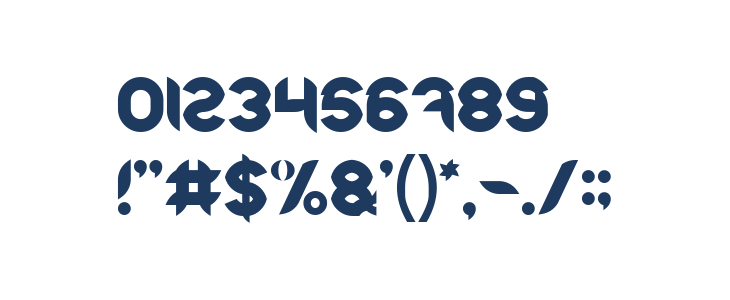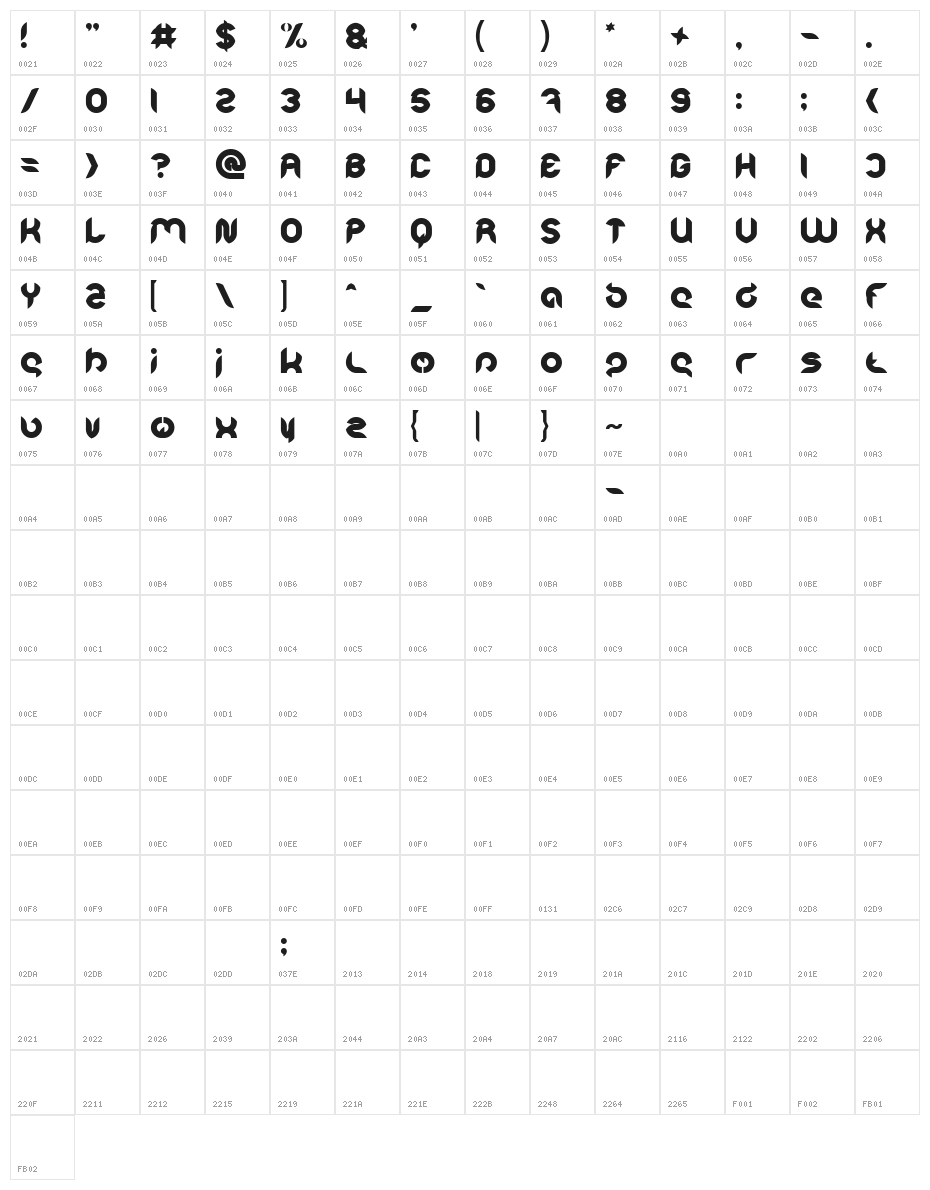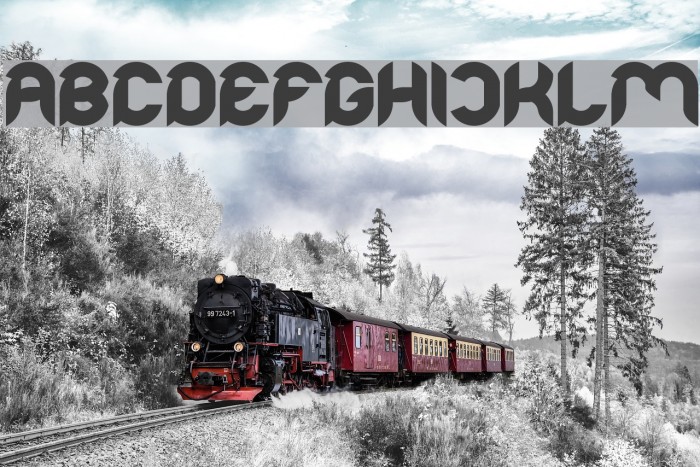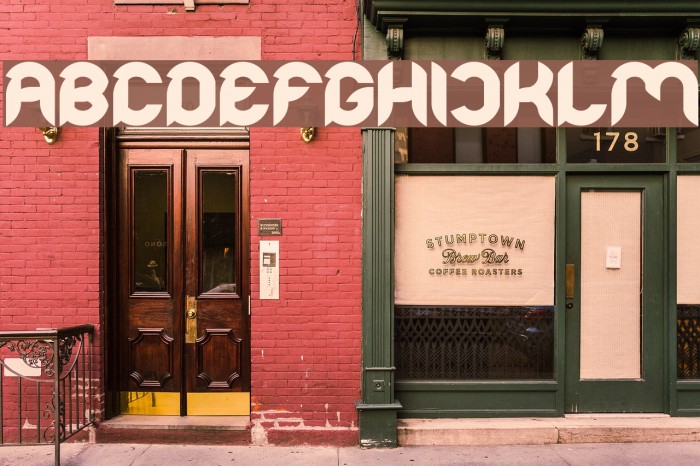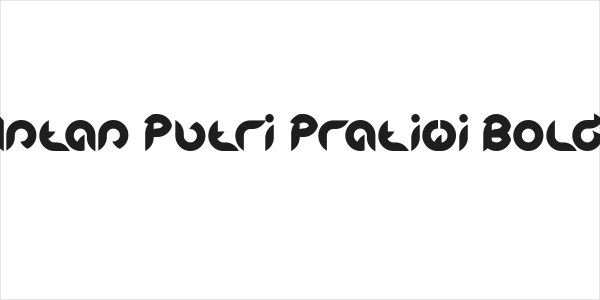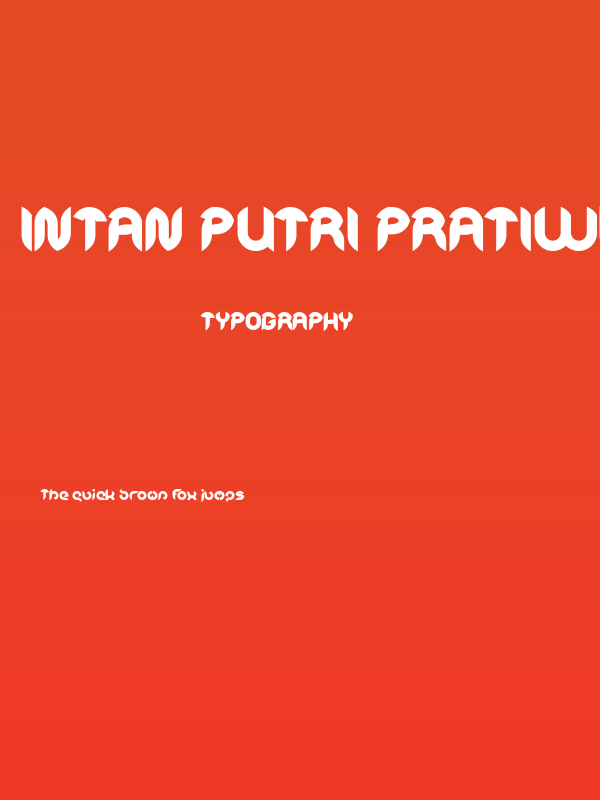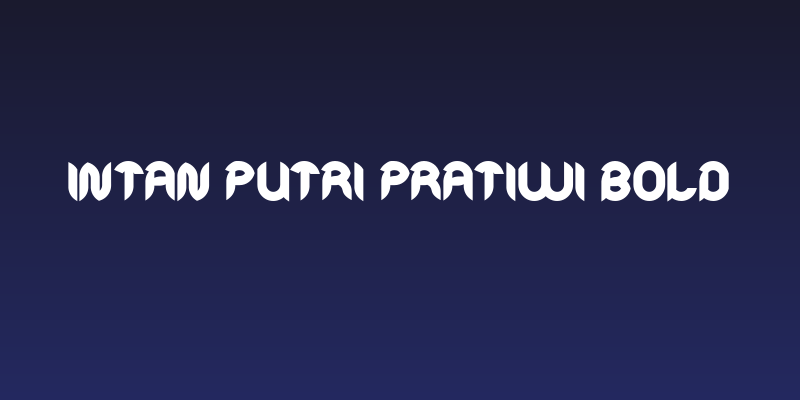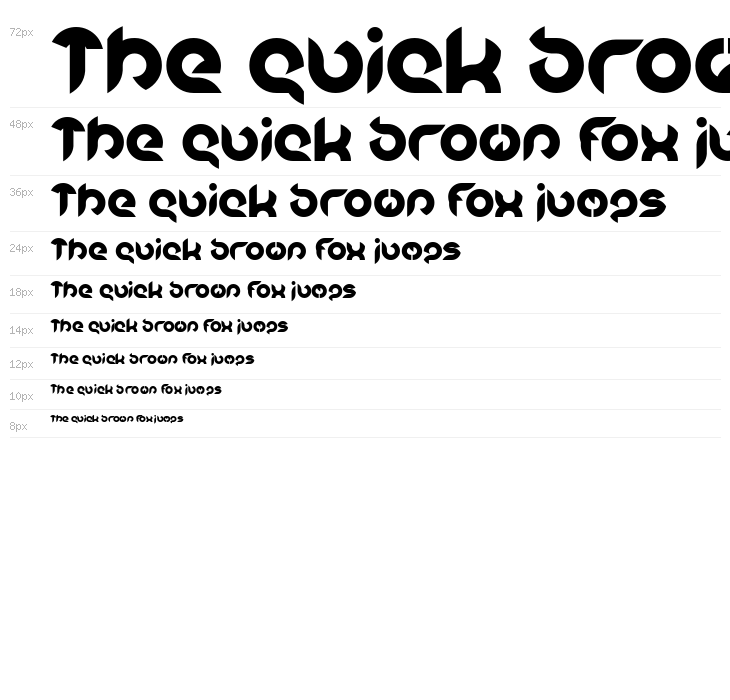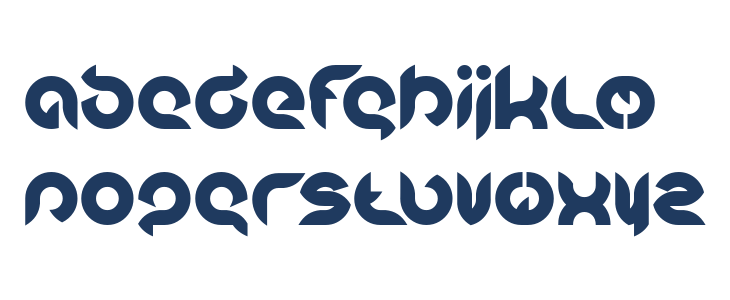
Intan Putri Pratiwi Bold Font
Intan Putri Pratiwi Bold Description
This font features a bold and striking design with a futuristic and geometric aesthetic. The characters are crafted with thick strokes and sharp angles, creating a sense of movement and energy. The uppercase and lowercase letters maintain a consistent style, with unique cutouts and curves that add a modern flair. Numbers and special characters are equally bold, ensuring a cohesive look across all text elements. This font's distinct appearance makes it suitable for projects that require a strong visual impact.
| Proposed Projects | Ideal for branding, posters, album covers, and any project needing a modern, eye-catching typeface. |